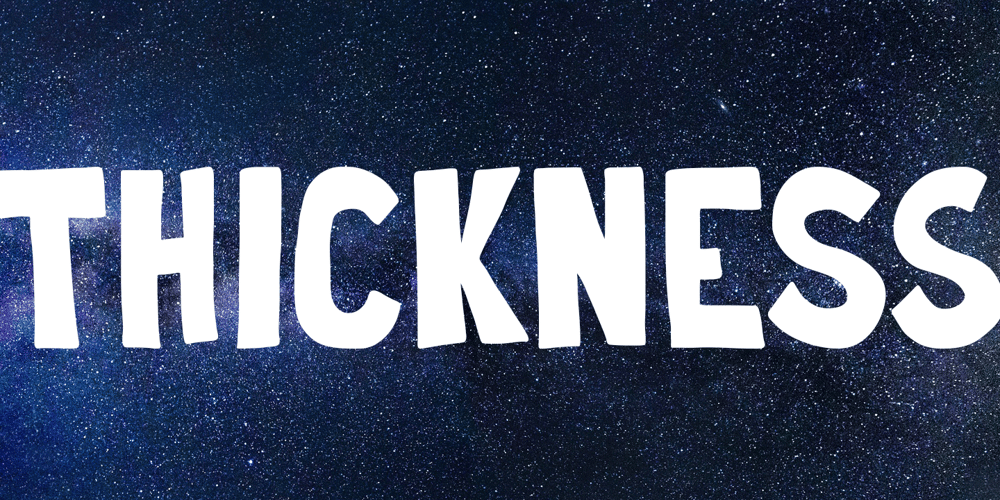
Thickness Font Family was designed by Kent Swecker and published by A New Machine. Thickness contains 1 styles and family package options. Thickness is a handmade font created with a casual feel that works well at larger sizes in headers or titles. Also works great in branding applications. Thickness is all cap, but with variation in the lower and uppercase so you can mix and match for a more handmade feel.